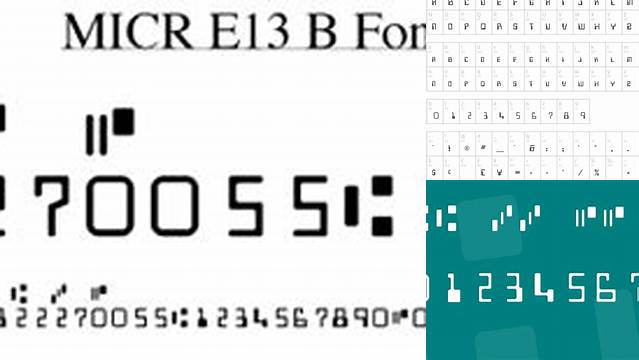
Hey everyone! Ever wondered about those funky-looking numbers at the bottom of your checks? That's MICR (Magnetic Ink Character Recognition), and you need a special font to print them correctly. Finding a MICR font free download can feel like searching for a needle in a haystack. But don't worry, we've got you covered! This article will guide you through everything you need to know about MICR fonts, where to find them (legally!), and how to use them. So, let's dive in and demystify the world of MICR fonts! Whether you're running a small business or just curious about check printing, this guide will give you the lowdown on everything. No more stressing about getting those checks right – we'll make sure you're a MICR font pro in no time!
What is MICR and Why Do You Need a Special Font?
Let's break it down, guys. MICR, or Magnetic Ink Character Recognition, is a character recognition technology used primarily by the banking industry to ease the processing and clearance of checks and other documents. The characters are printed with a special ink that contains magnetic material, making them machine-readable even if they are overprinted or marked. Now, why a special font? Well, regular fonts just won't cut it. The MICR font is specifically designed to be read by machines. The shape and spacing of each character are meticulously crafted to ensure accurate reading. Using the wrong font can lead to rejected checks, which is a headache no one wants. Think of it like this: it's like trying to fit a square peg in a round hole. It simply won't work! So, if you're planning on printing checks, make sure you've got the right MICR font in your arsenal. It's a small detail that makes a huge difference in the smooth operation of financial transactions. Trust me, using the correct MICR font is essential for avoiding errors and ensuring that your checks are processed quickly and efficiently. Skimping on this can cause delays and extra costs in the long run. So, getting the right font is an investment in efficiency and accuracy.
Understanding MICR E13B Font
The most common MICR font you'll encounter is MICR E13B. This font is the standard for checks in the United States, Canada, and many other countries. It's characterized by its unique, angular shapes that are easily recognized by magnetic ink character readers. The E13B font includes numerals 0 through 9, as well as several special symbols used for routing and account information. When looking for a MICR font free download, ensure it specifically states it's the E13B version to guarantee compatibility with banking systems. Using a non-standard font can result in check rejection, which can be costly and inconvenient. Understanding the E13B standard is crucial for anyone involved in check printing, whether it's for personal or business use. The precision and consistency of this font are what make automated check processing possible on a large scale. So, if you're dealing with checks, get familiar with the look and feel of the MICR E13B font. Also, pay attention to the character dimensions and spacing specifications when embedding or using in your documents. Any deviations from the established standard could lead to scanning errors. Remember, accuracy is paramount when it comes to financial documents. Therefore, understanding and utilizing the MICR E13B font correctly is an important aspect of financial operations.
MICR Font vs. OCR Font: What's the Difference?
MICR and OCR fonts serve different purposes, though they both involve character recognition. MICR fonts, as we've discussed, are designed for magnetic ink character recognition, primarily used in the banking industry for check processing. OCR fonts, on the other hand, are designed for Optical Character Recognition, which involves scanning printed or handwritten text and converting it into machine-readable text. The main difference lies in how the characters are read. MICR characters are read by magnetic sensors, while OCR characters are read by optical scanners. MICR fonts have specific shapes and spacing requirements to ensure accurate magnetic reading. OCR fonts are designed to be easily recognized by optical scanners, with clear and distinct character shapes. While some OCR fonts may look similar to standard fonts, MICR fonts have a unique and distinct appearance. Another key difference is the level of accuracy required. MICR character recognition demands extremely high accuracy to prevent check processing errors. OCR character recognition, while also requiring accuracy, is more tolerant of errors. MICR fonts are primarily used for financial documents, such as checks and payment slips. OCR fonts are used in a wider range of applications, including document scanning, data entry, and automated form processing. Finally, while some software may support both MICR and OCR font recognition, it's important to use the appropriate font for the intended purpose. Using an OCR font for check printing can lead to check rejection, so always use a MICR font when printing checks.